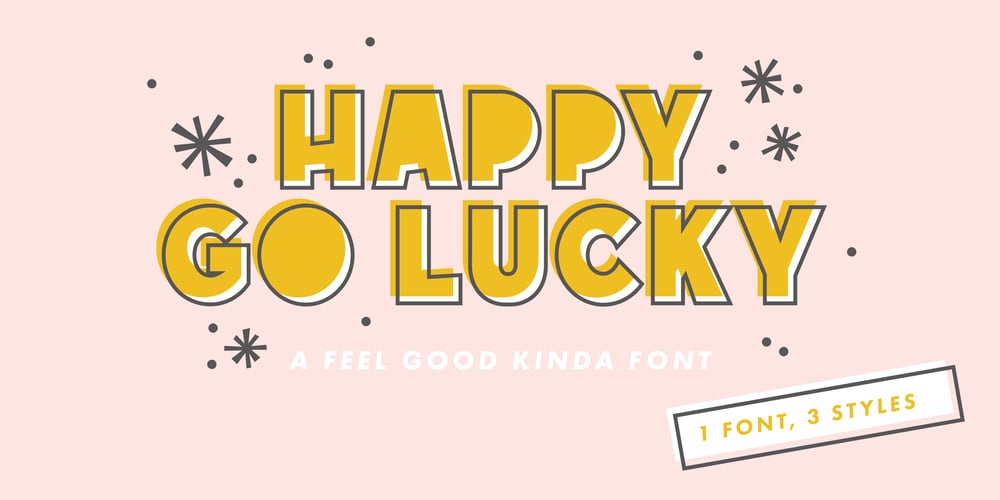
Happy Go Lucky Display Font Font Family was designed by Anya Felch and published by Goldfish Girl Creative. Happy Go Lucky Display Font contains 3 styles and family package options. A Feel Good Kinda FontThis playful and light-hearted, sans serif, display font includes uppercase letters, numbers, and punctuation. Great for carefree, boho, and fun designs like stationery, logos, wall art, stickers, patterns, and products. Use the font styles separately or try layering them! Built for easy use in Canva too. Includes:Happy Go Lucky font in 3 styles: Regular, Outlined, and Rounded